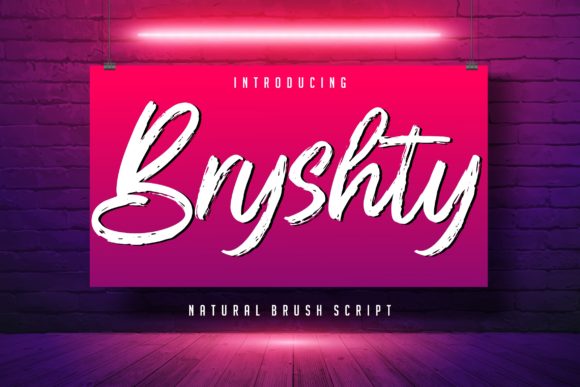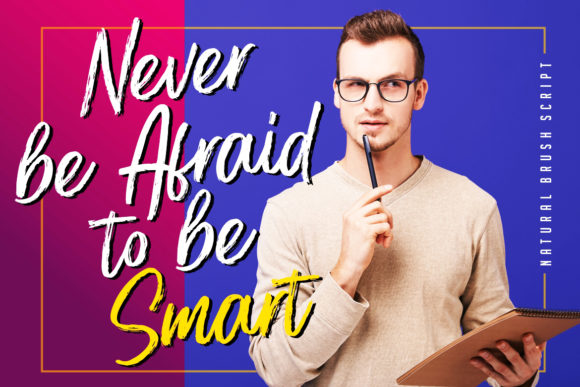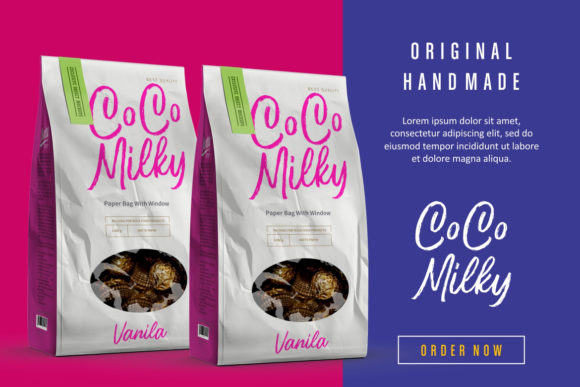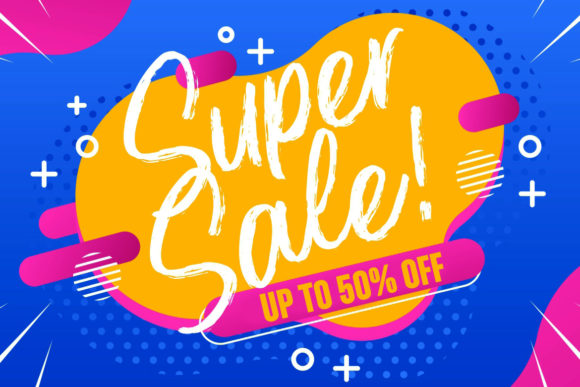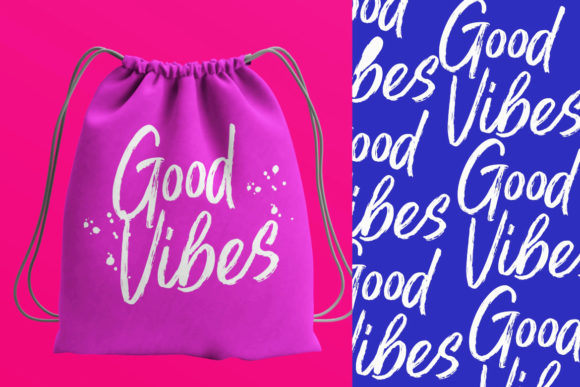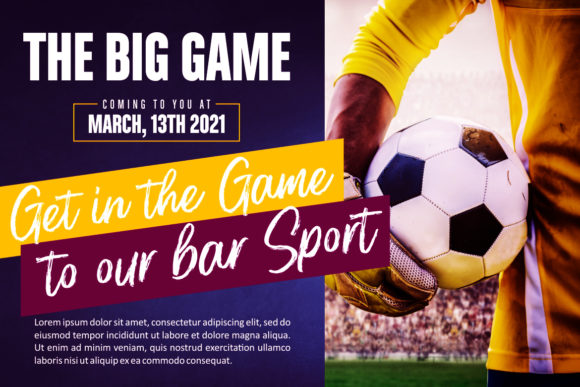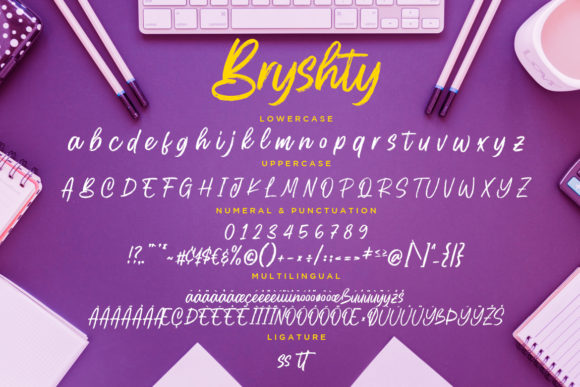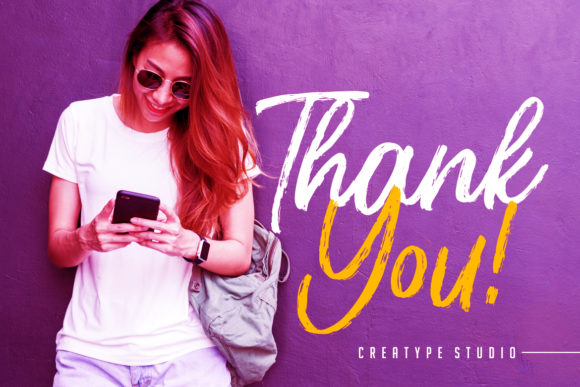
Bryshty Font
About Bryshty Font
Bryshty is natural and flowing handwritten font, designed with the help of an outstanding brush pen. Its bold and chunky characters will make this font fitting to a wide variety of contexts. Add it to your creative ideas and notice how it makes them stand out.